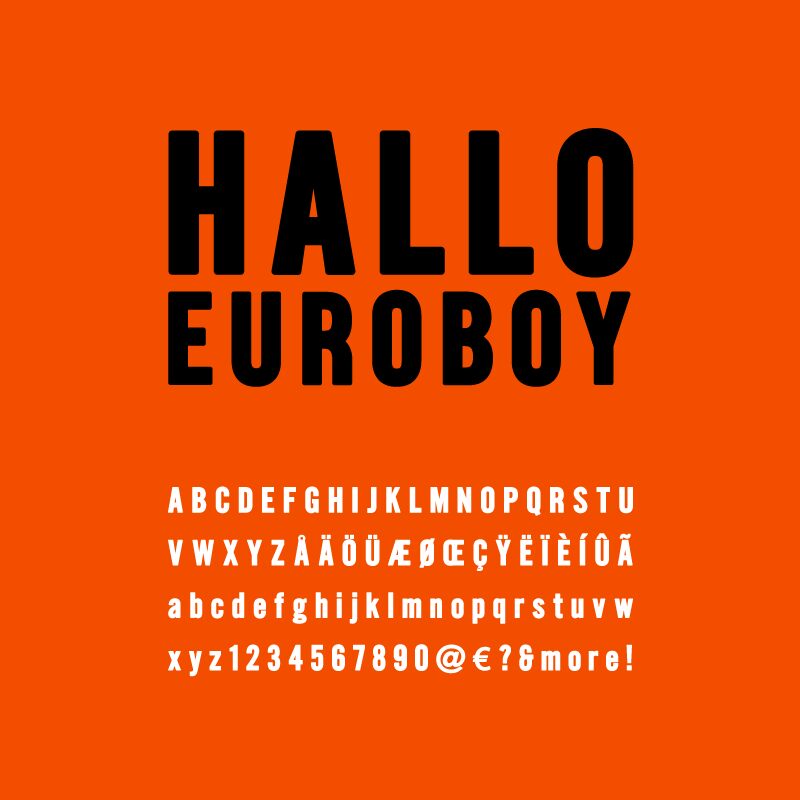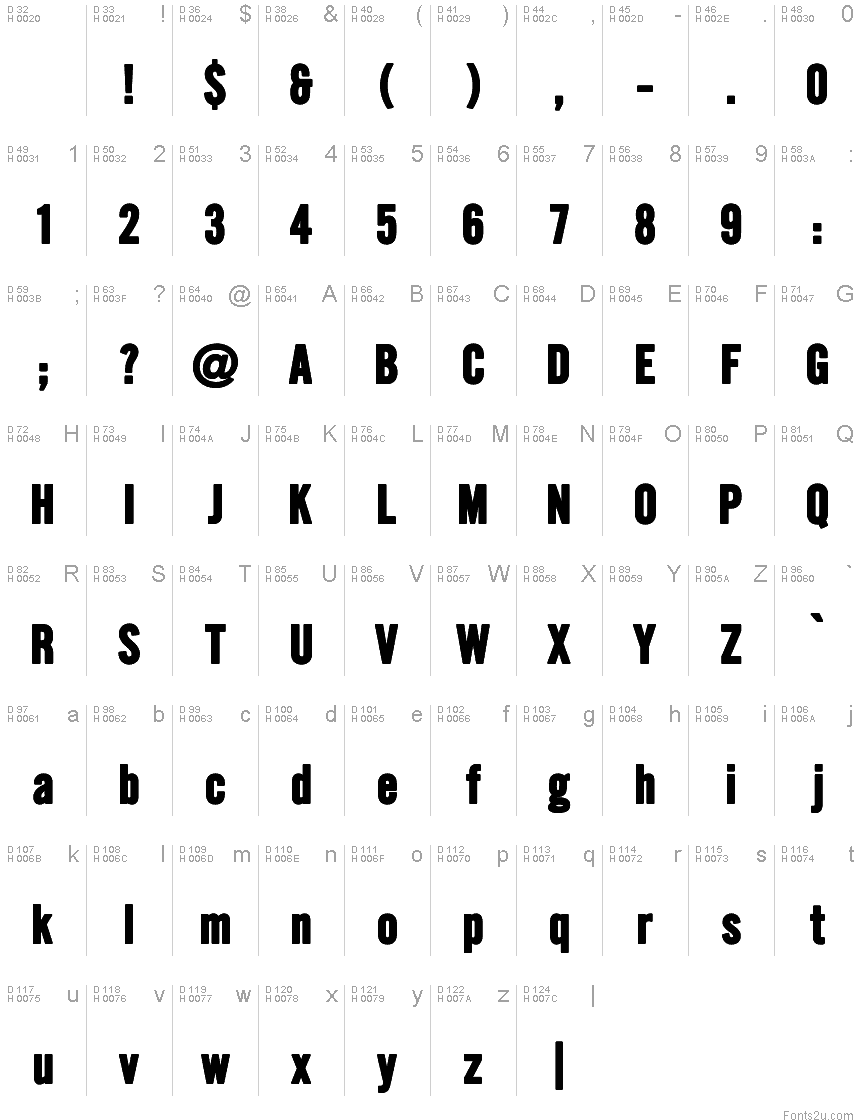
Hallo Euroboy Regular
Hallo Euroboy is a bold but slightly soft gothic typeface, inspired by Morris Fuller Bentons classic but sadly overlooked "Alternate Gothic".
Hallo Euroboy is suitable for impactful headlines and posters. Or warning signs.
Hallo Euroboy is a font designed by HENRIavecunK in 2016.